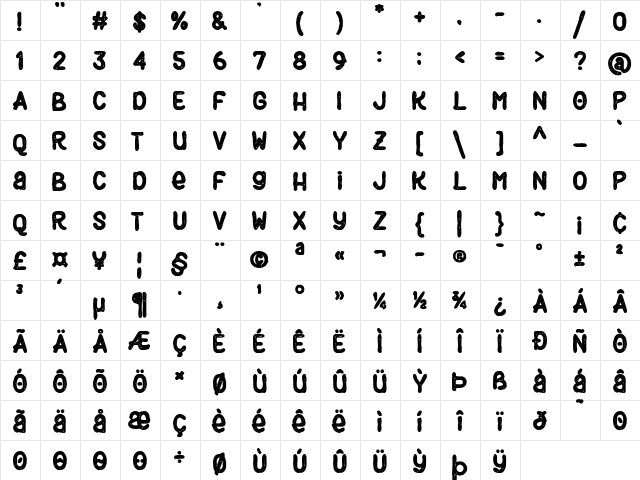
Black Burger Rough Regular
| Designer | diqtam darmawan |
Design Context for Black Burger Rough Typeface
Black Burger Rough embraces imperfection — its rough, textured character adds raw authenticity to designs that want to feel lived-in and unconventional.
A strong fit for alternative music projects, graffiti-adjacent design, and anything that deliberately resists polish.
Pro Tip: Use Black Burger Rough at larger sizes where the texture and irregularity of each letterform can be clearly seen — it loses its character at small sizes.